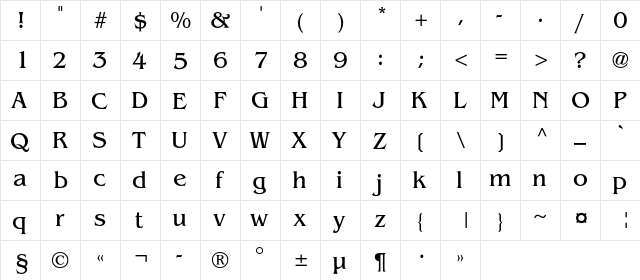
AGBengalyC Regular
Design Context for AGBengalyC Typeface
AGBengalyC offers clean, dependable letterforms without strong stylistic allegiance, making it a practical choice for designers who need flexibility.
Pro Tip: Use AGBengalyC in both headline and body roles to test its range before committing to a single application.